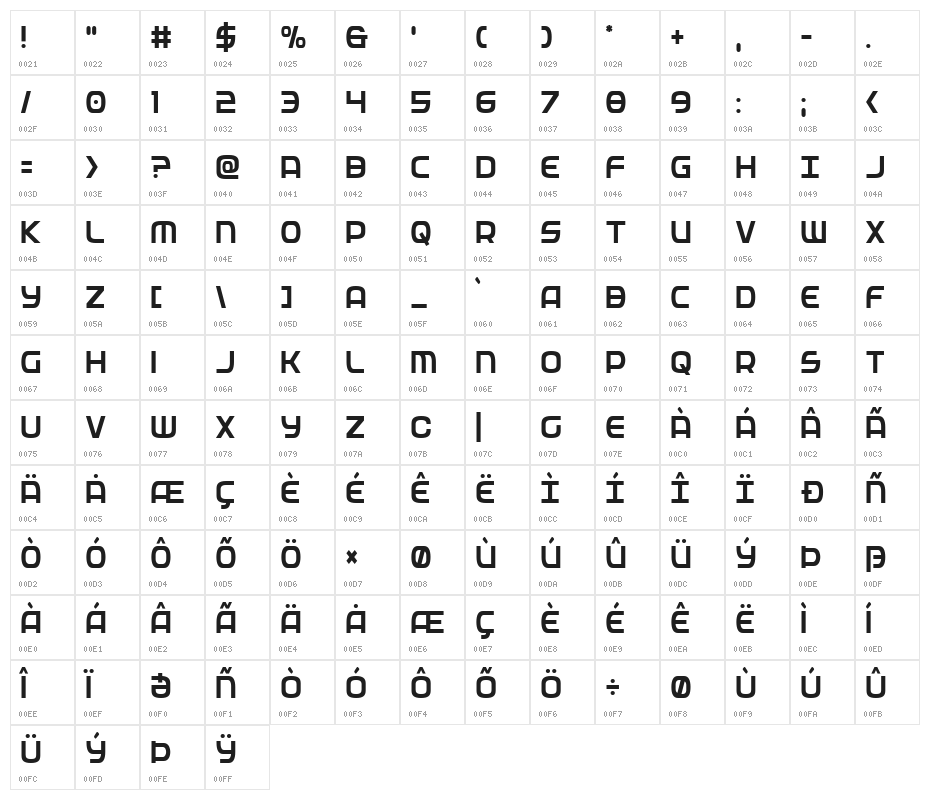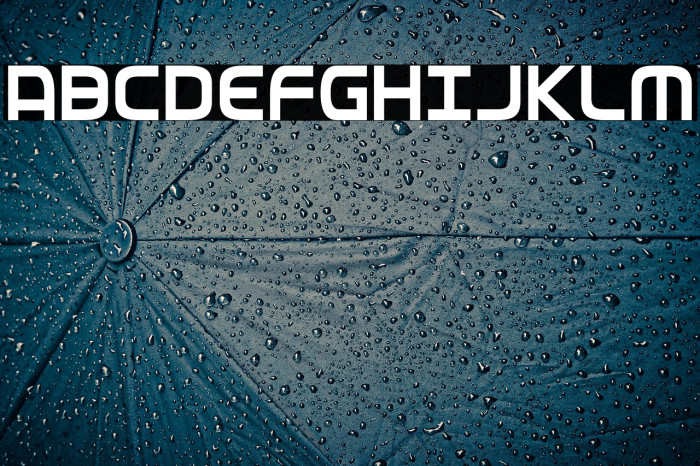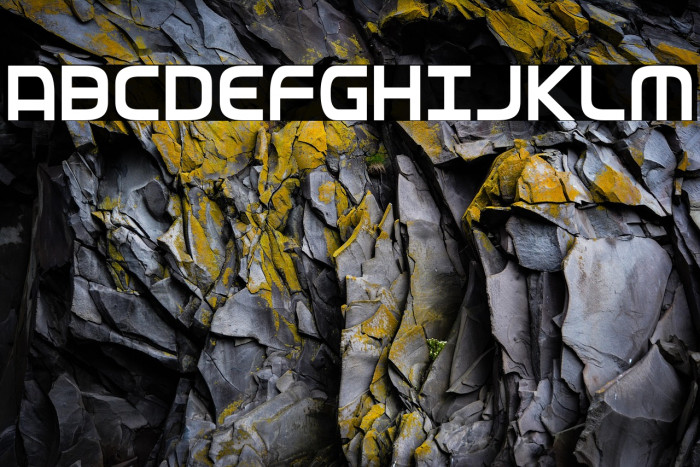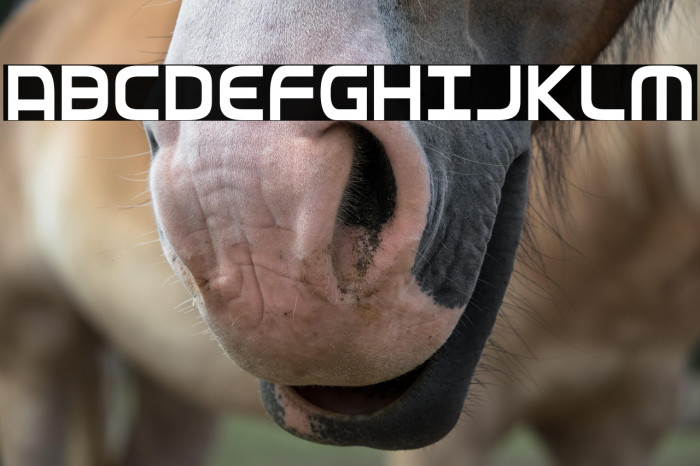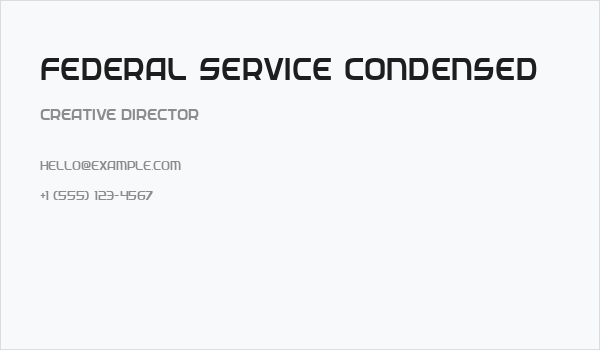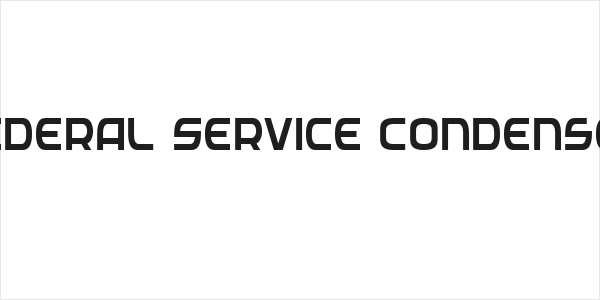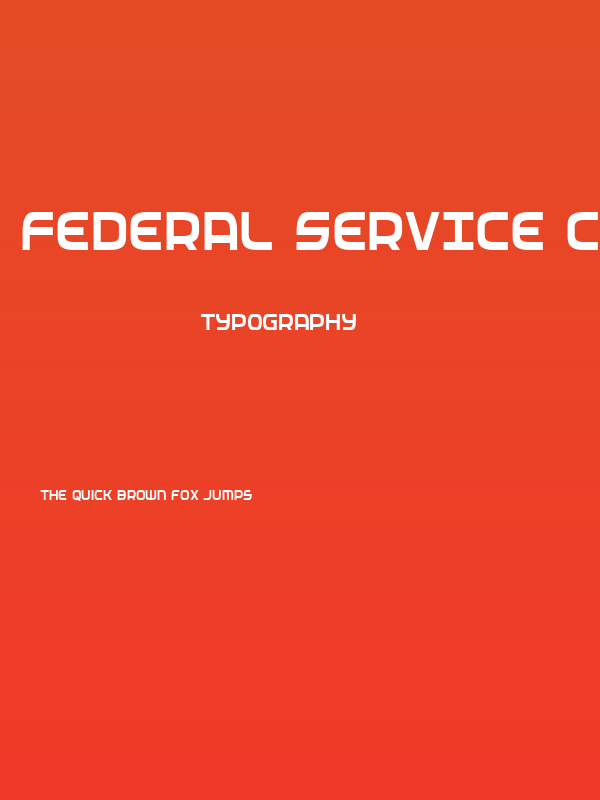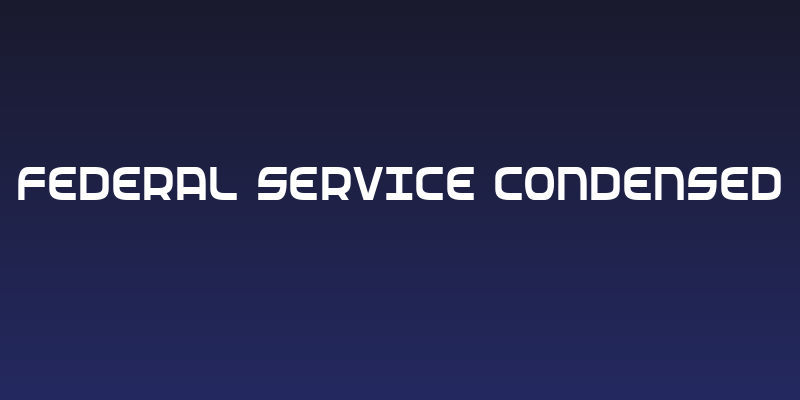
Federal Service Condensed Font
Federal Service Condensed Description
This font features a bold and modern design with a condensed structure, characterized by its geometric shapes and clean lines. The uppercase letters are uniform in height, with a slight curvature that adds a contemporary feel. The numerals are distinct and easy to read, maintaining the same geometric style. Special characters are well-integrated, providing a cohesive look across all glyphs. The overall appearance is sleek and professional, making it suitable for various applications where a strong visual impact is desired.
| Use Case | Headlines, Logos, Signage |
| Proposed Projects | Ideal for branding, signage, posters, and digital media where a modern and impactful look is needed. |